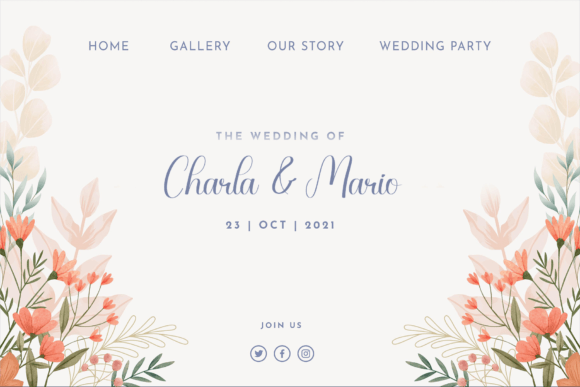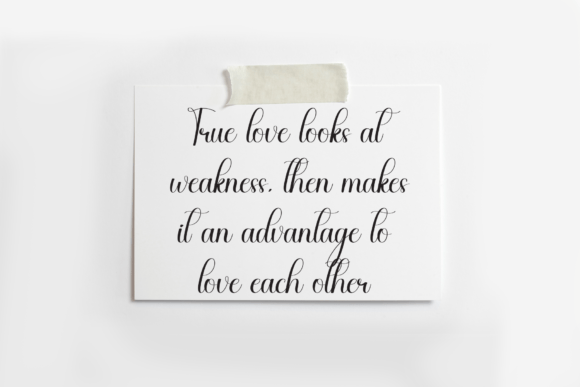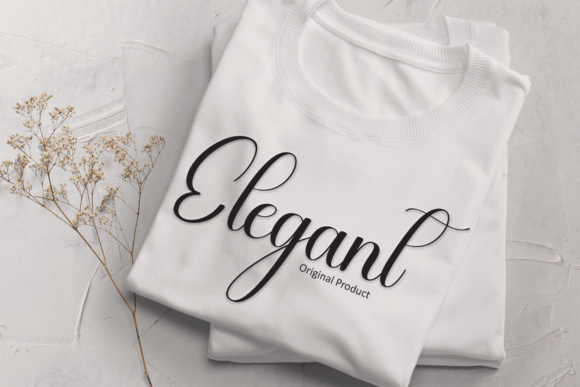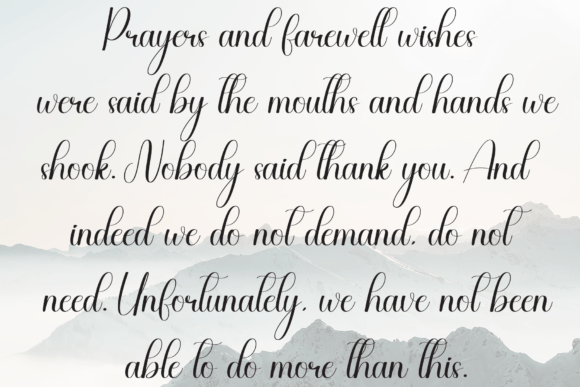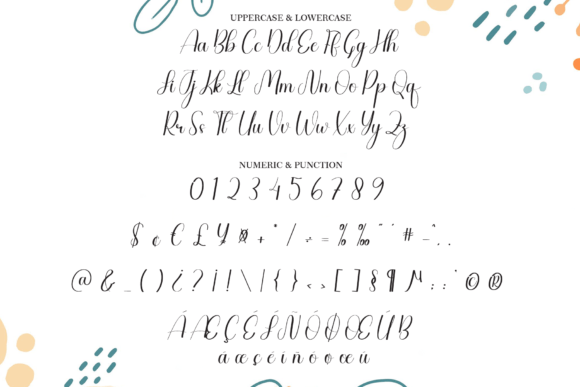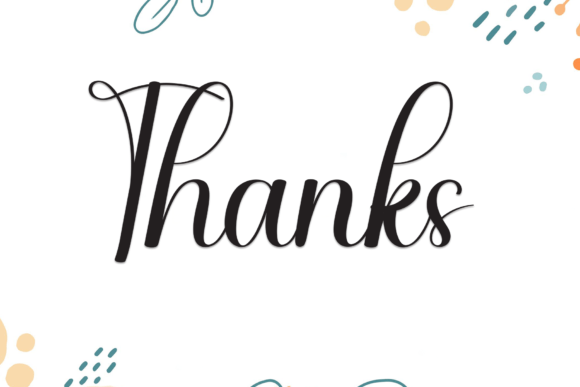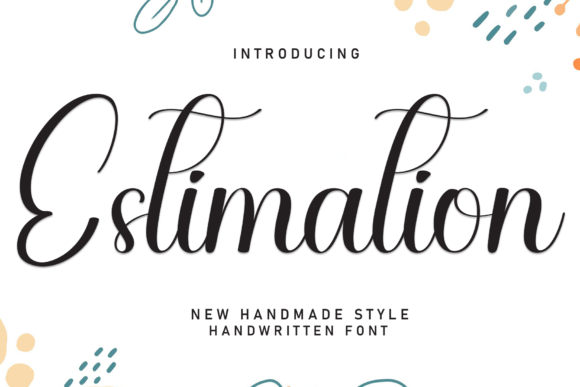
Estimation Font: The Sweet and Friendly Handwritten Display Font
Are you looking for a font that can add a touch of sweetness and friendliness to your designs? Look no further than Estimation Font! This beautiful handwritten display font is perfect for creating fun and playful designs that are sure to capture the attention of your audience.
What is Estimation Font?
Estimation Font is a sweet and friendly handwritten display font that is ideal for writing wedding invitations, cards, or any other design that might need a fun touch. This font is carefully crafted to bring a sense of playfulness and whimsy to your designs, making it perfect for designers and crafters who want to add a personal touch to their work.
Characteristics of Estimation Font
Estimation Font has several characteristics that make it stand out from other fonts. Some of its key features include:
- Cute and Fun: Estimation Font is designed to be cute and fun, making it perfect for designs that require a playful touch.
- Handwritten: This font has a beautiful handwritten feel that gives it a personal and unique touch.
- Display Font: Estimation Font is a display font, making it perfect for headlines, titles, and other design elements that need to stand out.
- Versatile: This font can be used for a wide range of designs, from wedding invitations to cards, posters, and more.
Uses of Estimation Font
Estimation Font is a versatile font that can be used for a wide range of designs. Some of the most popular uses of this font include:
- Wedding Invitations: Estimation Font is perfect for creating beautiful and unique wedding invitations that will set the tone for your special day.
- Cards: This font is great for creating fun and playful cards for birthdays, holidays, and other special occasions.
- Posters: Estimation Font can be used to create eye-catching posters for events, promotions, and more.
- Social Media Graphics: This font is perfect for creating social media graphics that need to stand out, such as Facebook posts, Instagram stories, and more.
Tips for Using Estimation Font
Here are some tips for using Estimation Font in your designs:
- Use it sparingly: Estimation Font is a display font, so it’s best to use it sparingly to create emphasis and visual interest.
- Pair it with other fonts: This font pairs well with other fonts, so don’t be afraid to experiment with different combinations.
- Experiment with colors: Estimation Font looks great in a variety of colors, so don’t be afraid to experiment with different color schemes.
Estimation Font is a beautiful and versatile handwritten display font that is perfect for designers and crafters who want to add a touch of sweetness and friendliness to their designs. With its cute and fun design, this font is ideal for writing wedding invitations, cards, or any other design that might need a fun touch. So why not give Estimation Font a try and see how it can elevate your designs?
Whether you’re a professional designer or a crafter, Estimation Font is a great addition to your font collection. Its versatility and playfulness make it perfect for a wide range of designs, from wedding invitations to social media graphics. So go ahead, get creative, and see what amazing designs you can create with Estimation Font!